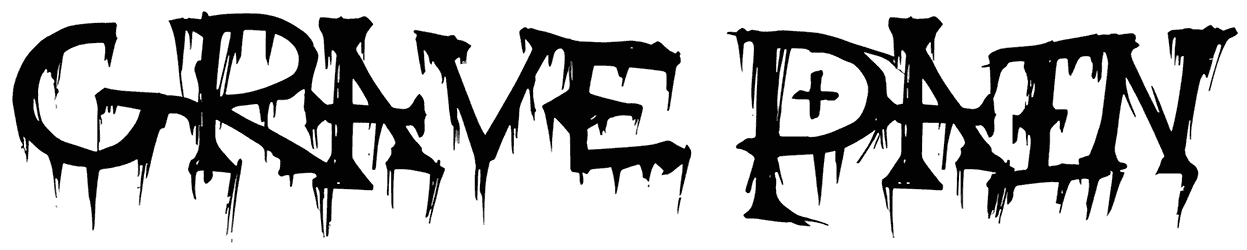
Grave Pain Font
If you think that using blood-dripping fonts in horror projects is a repetitive idea, then we suggest you give Grave Pain a chance. This horror font, in which the empty spaces of small letters are felt, is a powerful too…
If you think that using blood-dripping fonts in horror projects is a repetitive idea, then we suggest you give Grave Pain a chance. This horror font, in which the empty spaces of small letters are felt, is a powerful tool for designers who are at the beginning of their journey and are looking for new ideas.